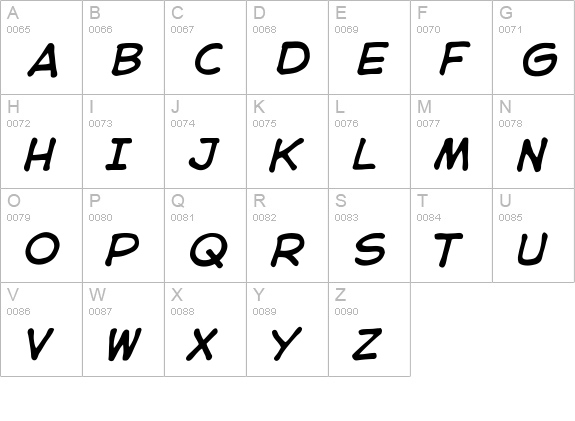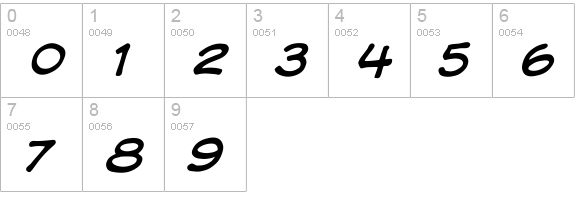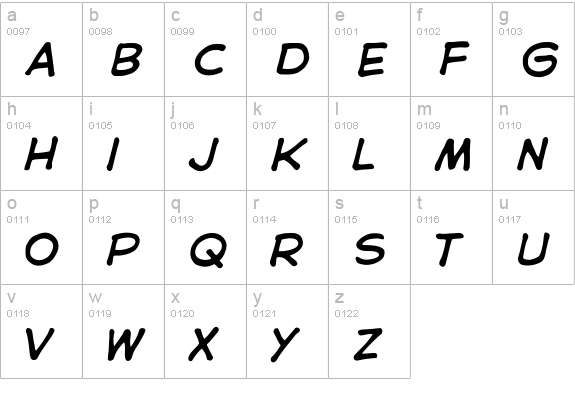
CCAstroCity-Italic Font Details
CCAstroCity-Italic is a distinctive, italic variant in the CCAstroCity typeface family \xE2\x80\x94 well suited to design and typography projects.
Introducing CCAstroCity-Italic, a sleek and stylish font that exudes elegance and sophistication. Its italicized design adds a touch of flair to any project, making it perfect for both formal and creative purposes. The flowing curves and sharp angles of this font create a captivating visual appeal that is sure to make your text stand out. But the best part? CCAstroCity-Italic is completely free to download at FontsMarket.com! Enjoy the luxury of using this premium font without any cost, and elevate your designs with ease. Whether you're crafting a professional presentation, designing a stunning logo, or simply adding a touch of class to your personal projects, CCAstroCity-Italic is the perfect choice. Download it now and let your creativity shine!